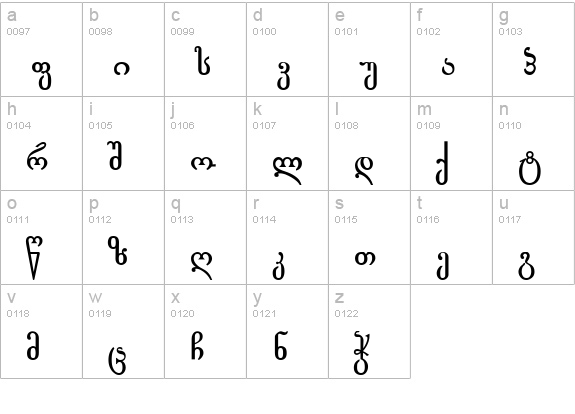
Gogebashvili-ITV Bold Font Details
Gogebashvili-ITV Bold is a strong, high-contrast variant in the Gogebashvili typeface family \xE2\x80\x94 well suited to headlines, attention-grabbing titles, and strong calls-to-action.
Gogebashvili-ITV Bold font is a bold and striking typeface that commands attention with its strong and confident presence. Its sharp lines and bold strokes make it ideal for creating eye-catching headlines, logos, and branding materials. This versatile font exudes a modern and sophisticated vibe, perfect for a wide range of design projects. The best part? Gogebashvili-ITV Bold font is available for free download at FontsMarket.com. This means you can easily add this stylish typeface to your font collection without any cost. Whether you're a professional designer looking for a new font to elevate your projects or a casual user in need of a fresh look for your personal creations, Gogebashvili-ITV Bold font has got you covered. Don't miss out on the opportunity to enhance your designs with this sleek and impactful font. Download Gogebashvili-ITV Bold today and let your creativity shine!